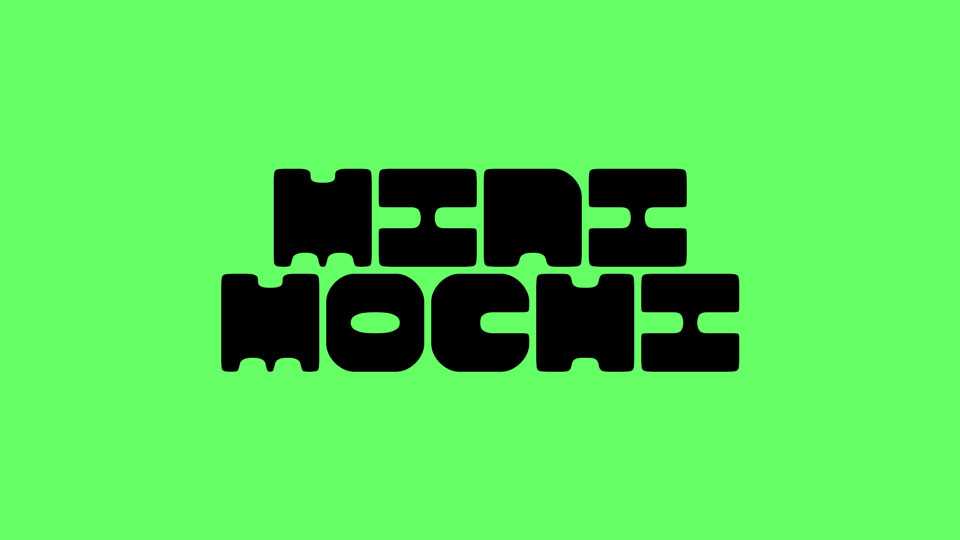
Download Mini Mochi font, a playful, delectable, variable display font with a little bit of *stretch* and a little bit of *flavor.* Each letter is like a mochi-shaped cube engraved with pudgy counterforms.